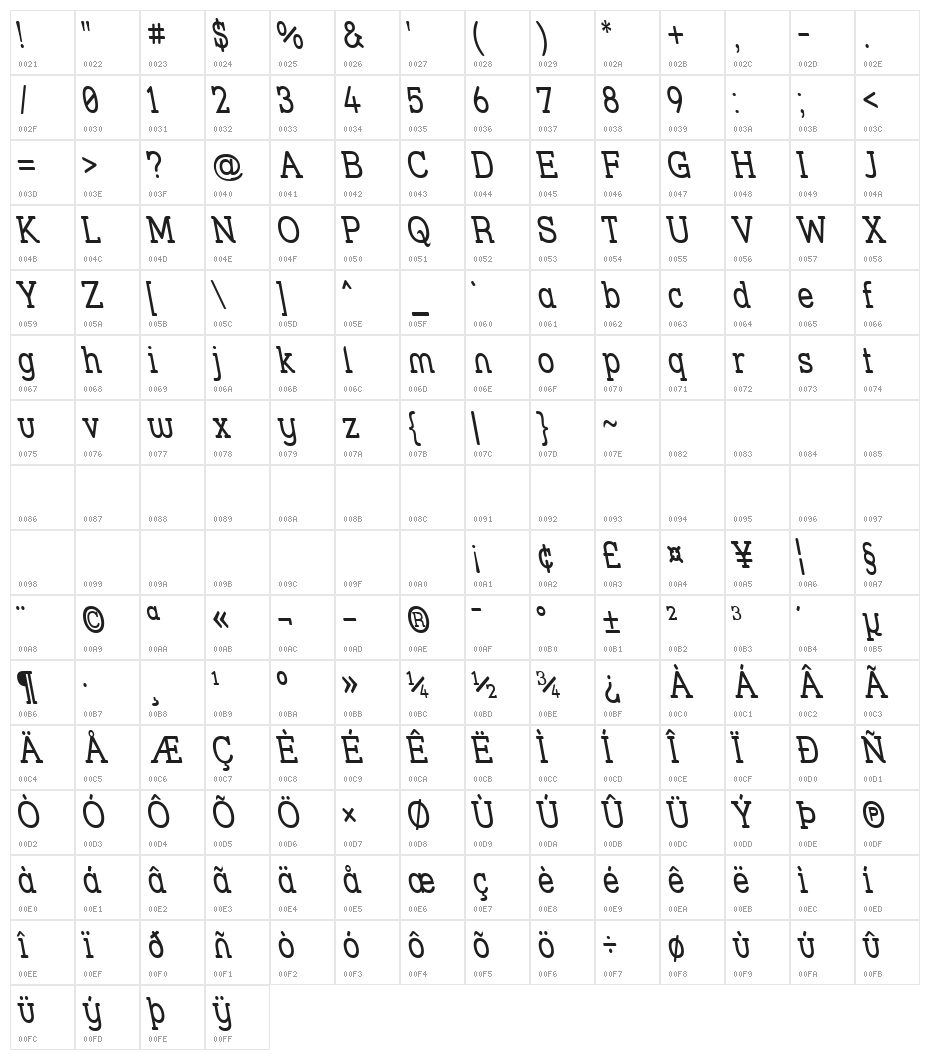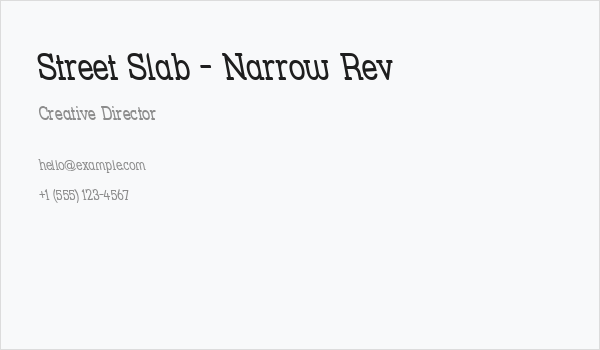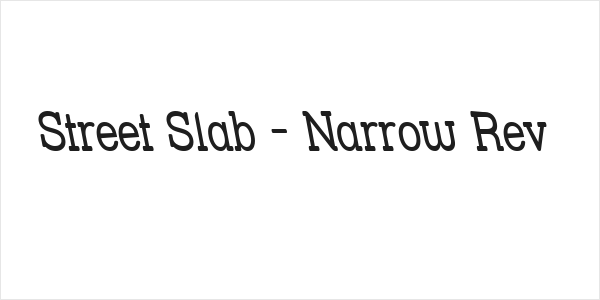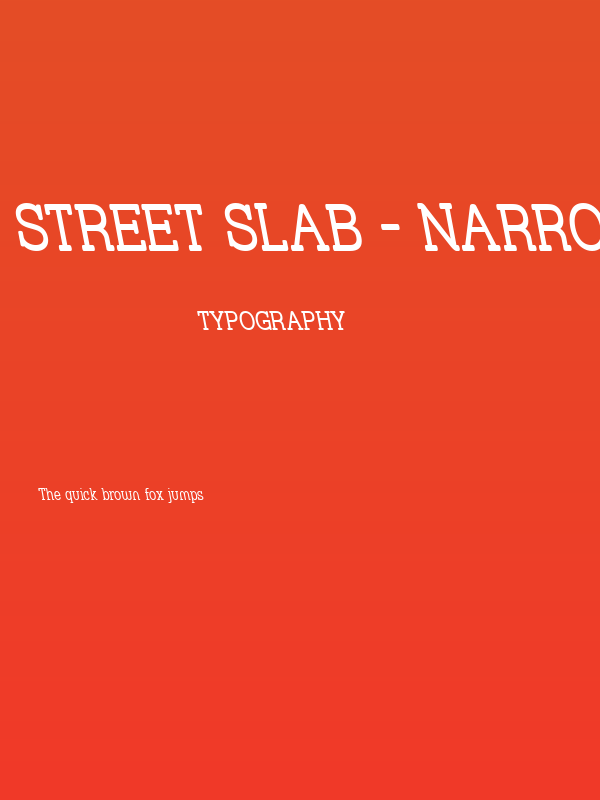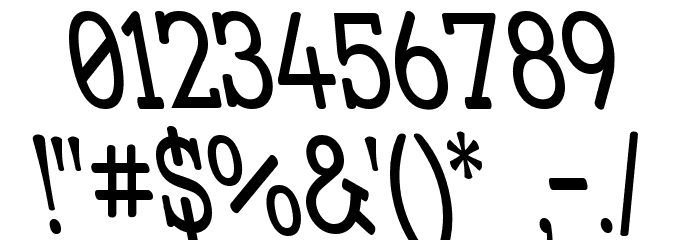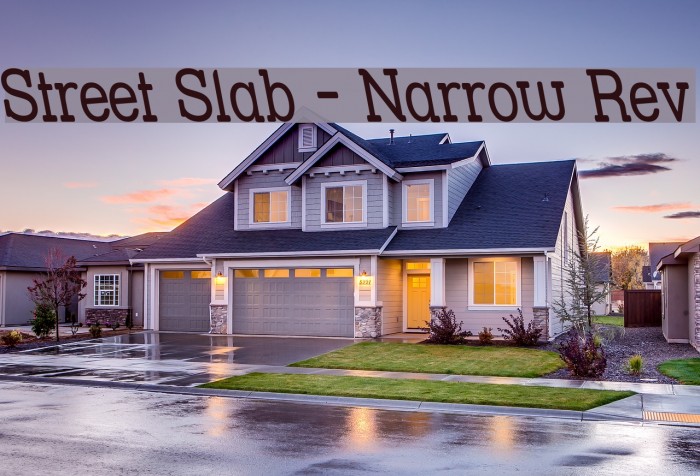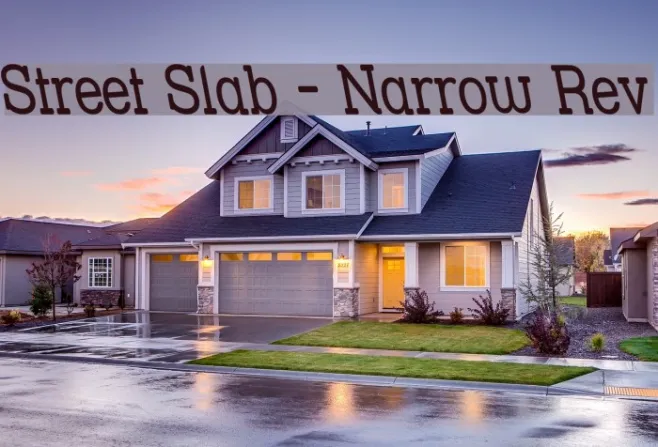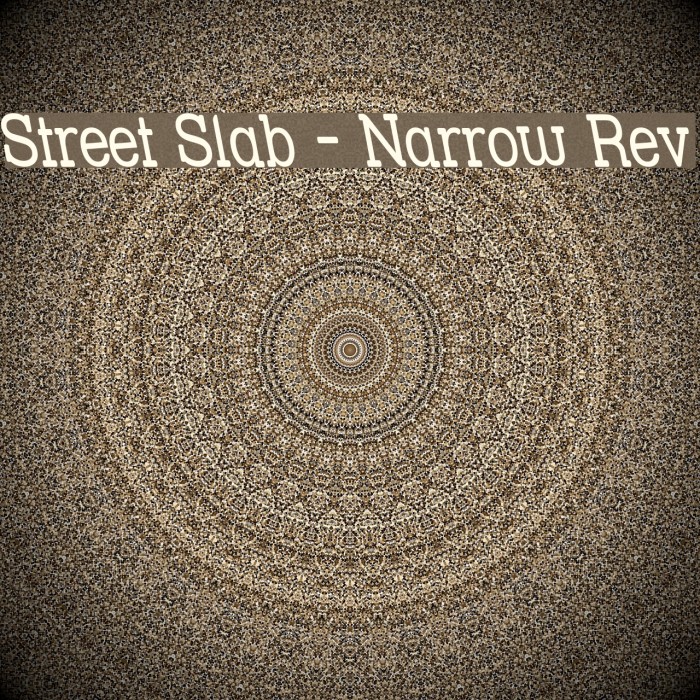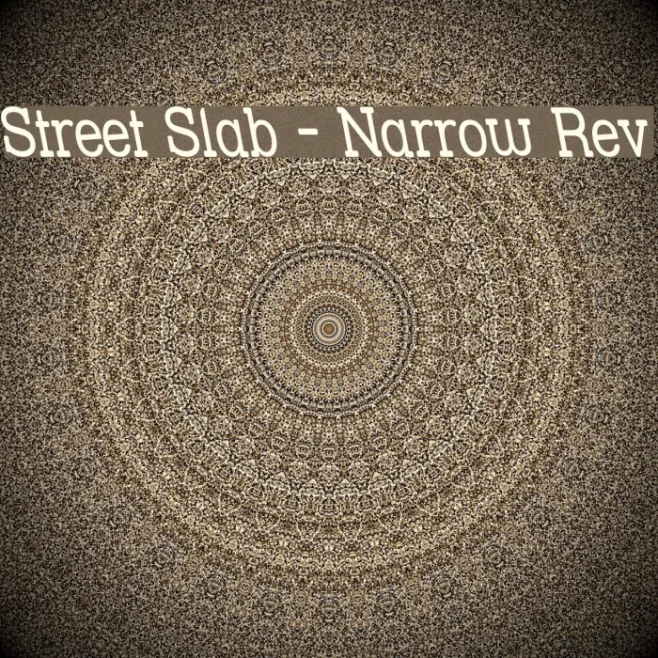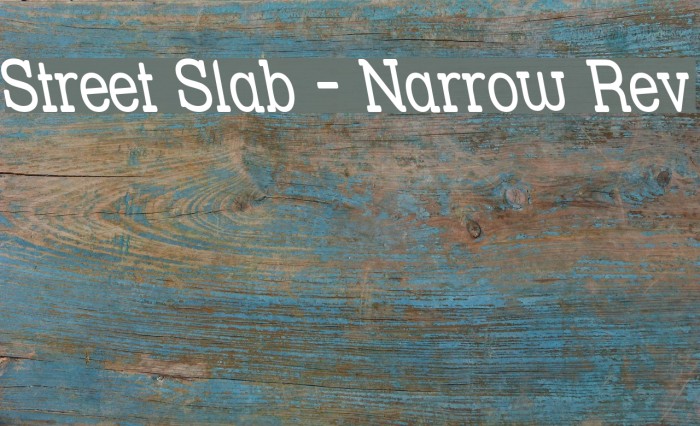
Street Slab - Narrow Rev Font
This font features a bold and narrow slab serif style, characterized by its strong, rectangular serifs and condensed letterforms. The uppercase letters are tall and commanding, while the lowercase letters maintain a consistent height, providing a balanced and structured appearance. The numerals are clear and legible, with a uniform width that complements the overall design. Special characters are distinct and well-defined, ensuring versatility in various contexts. The font's narrow width makes it suitable for space-constrained designs, while its boldness ensures readability and impact.
| Proposed Projects | Ideal for headlines, posters, and branding materials where a strong, impactful presence is needed. |